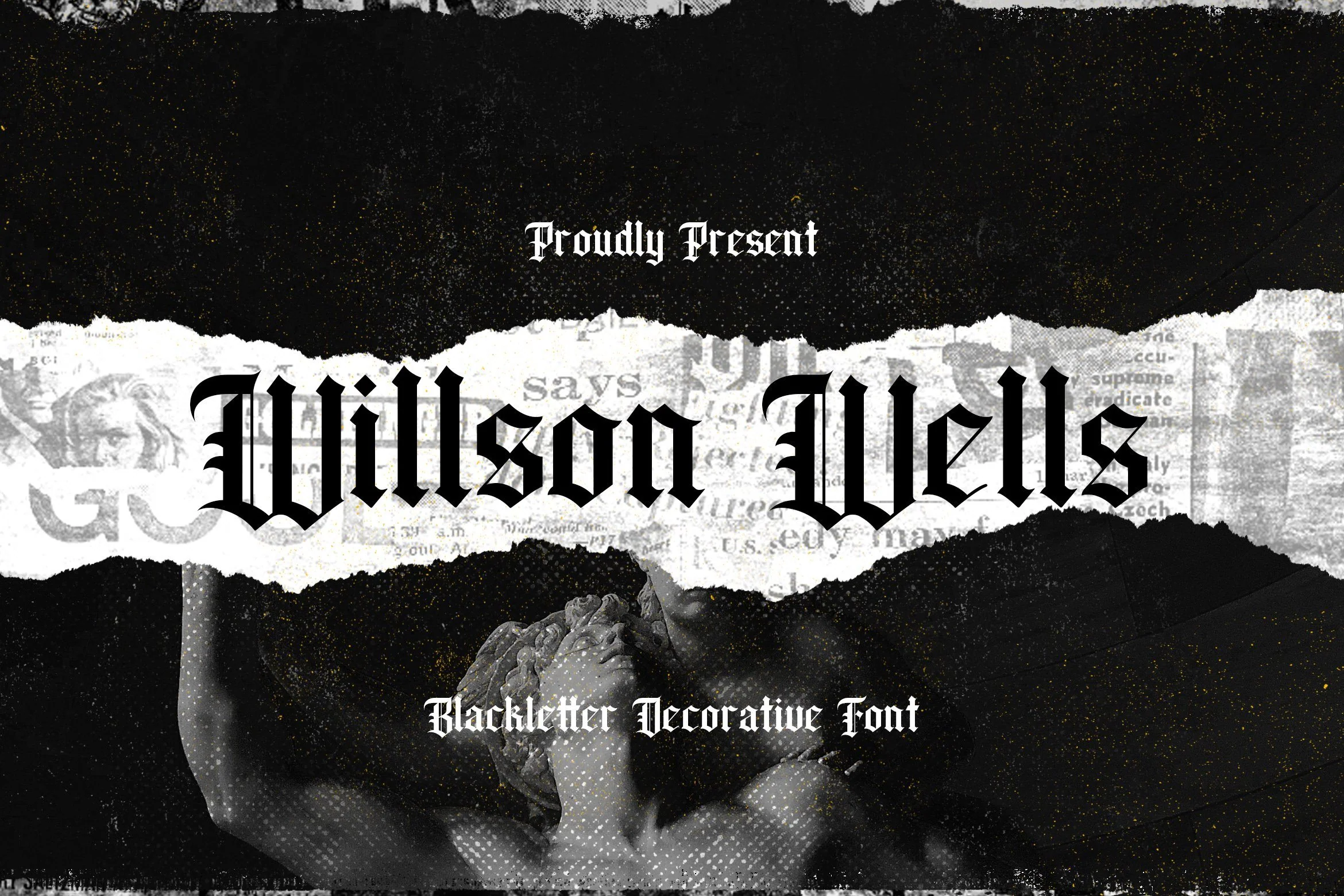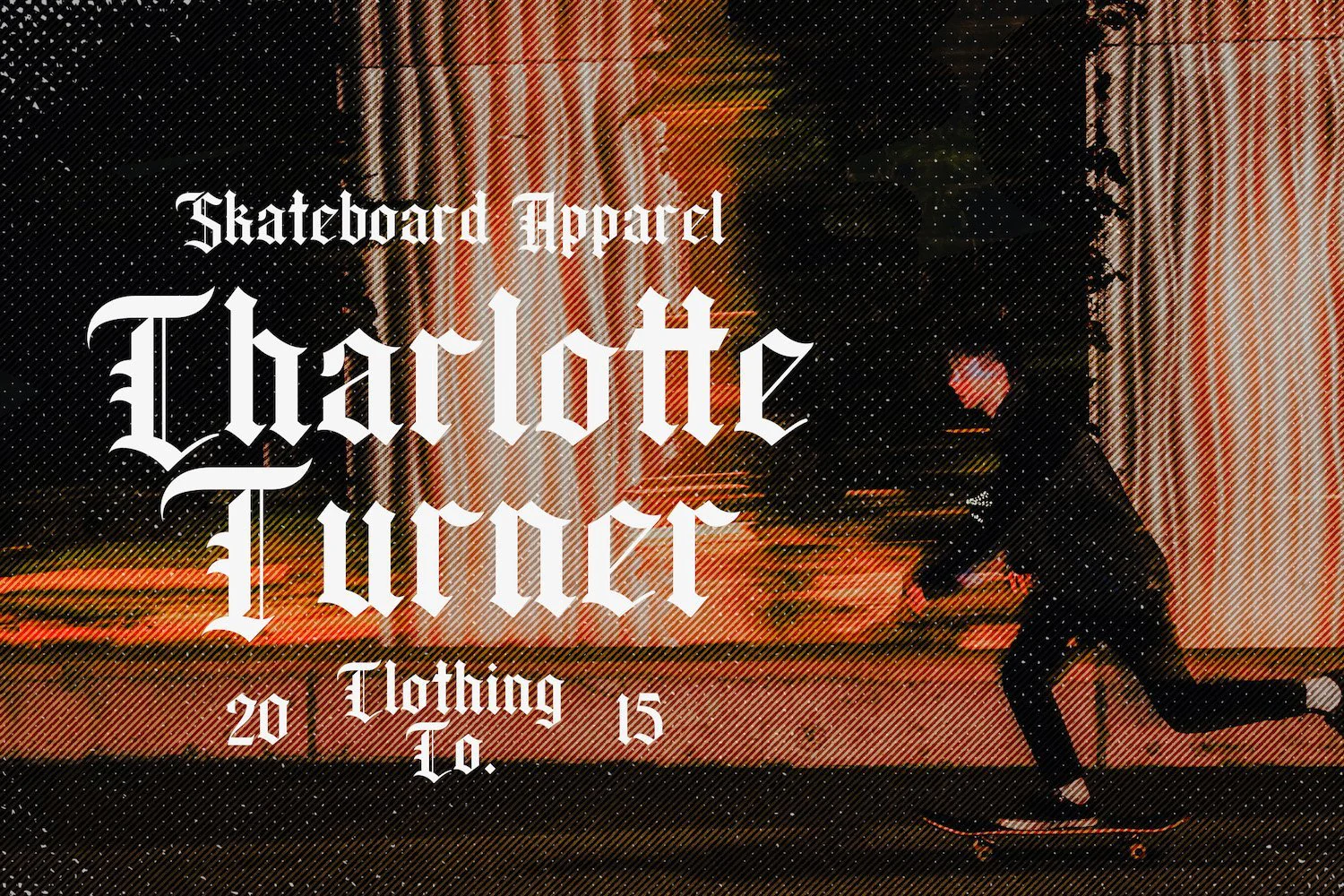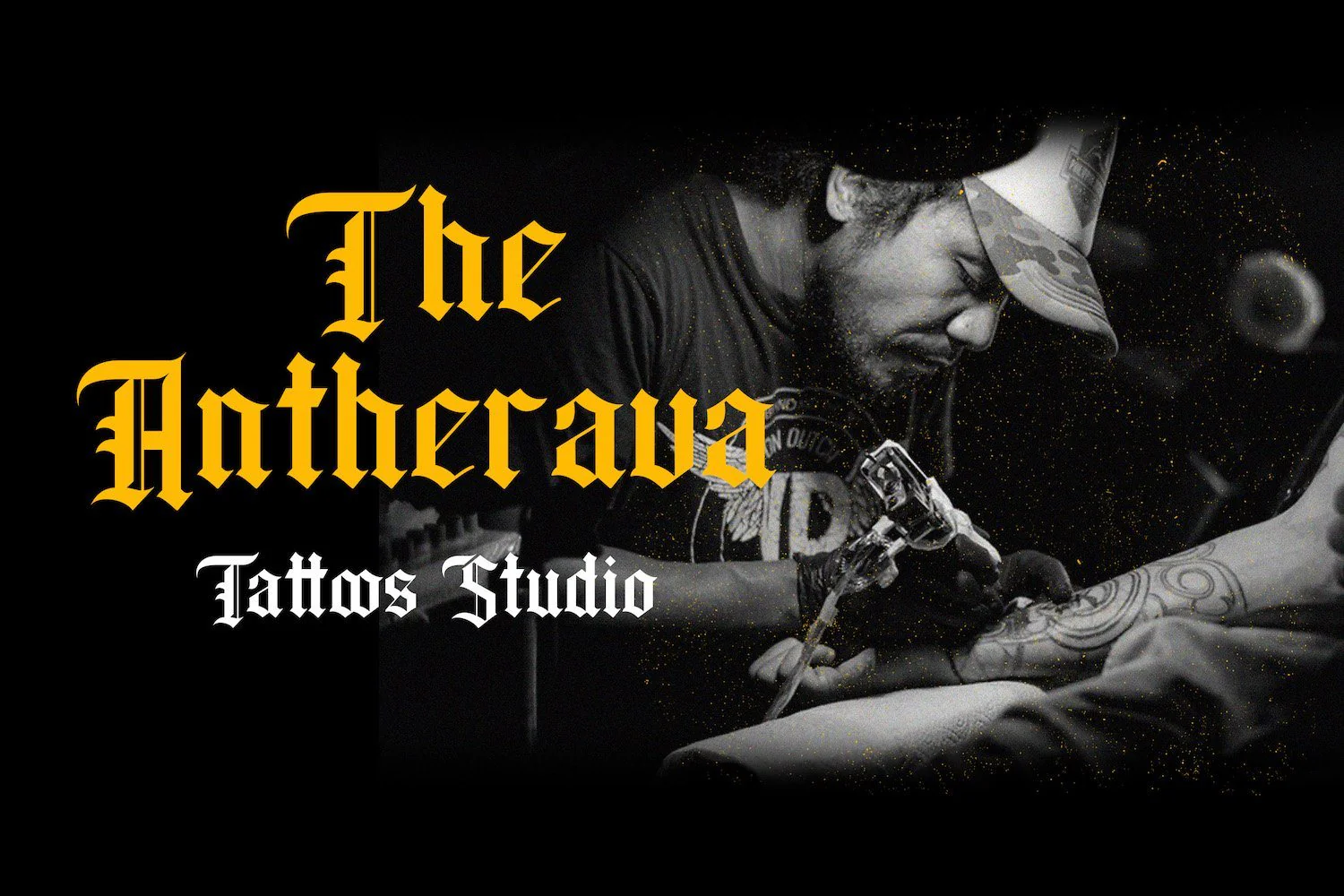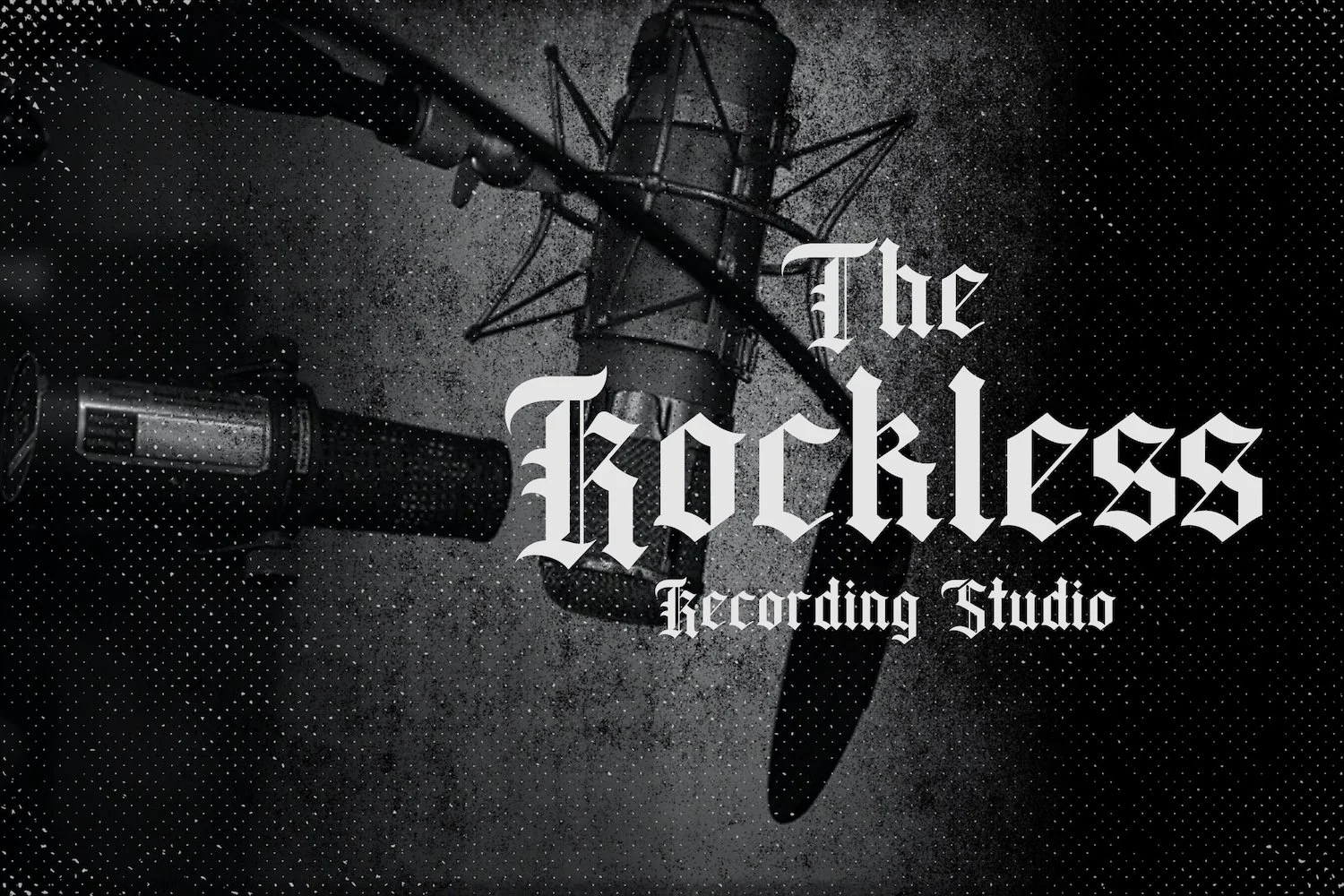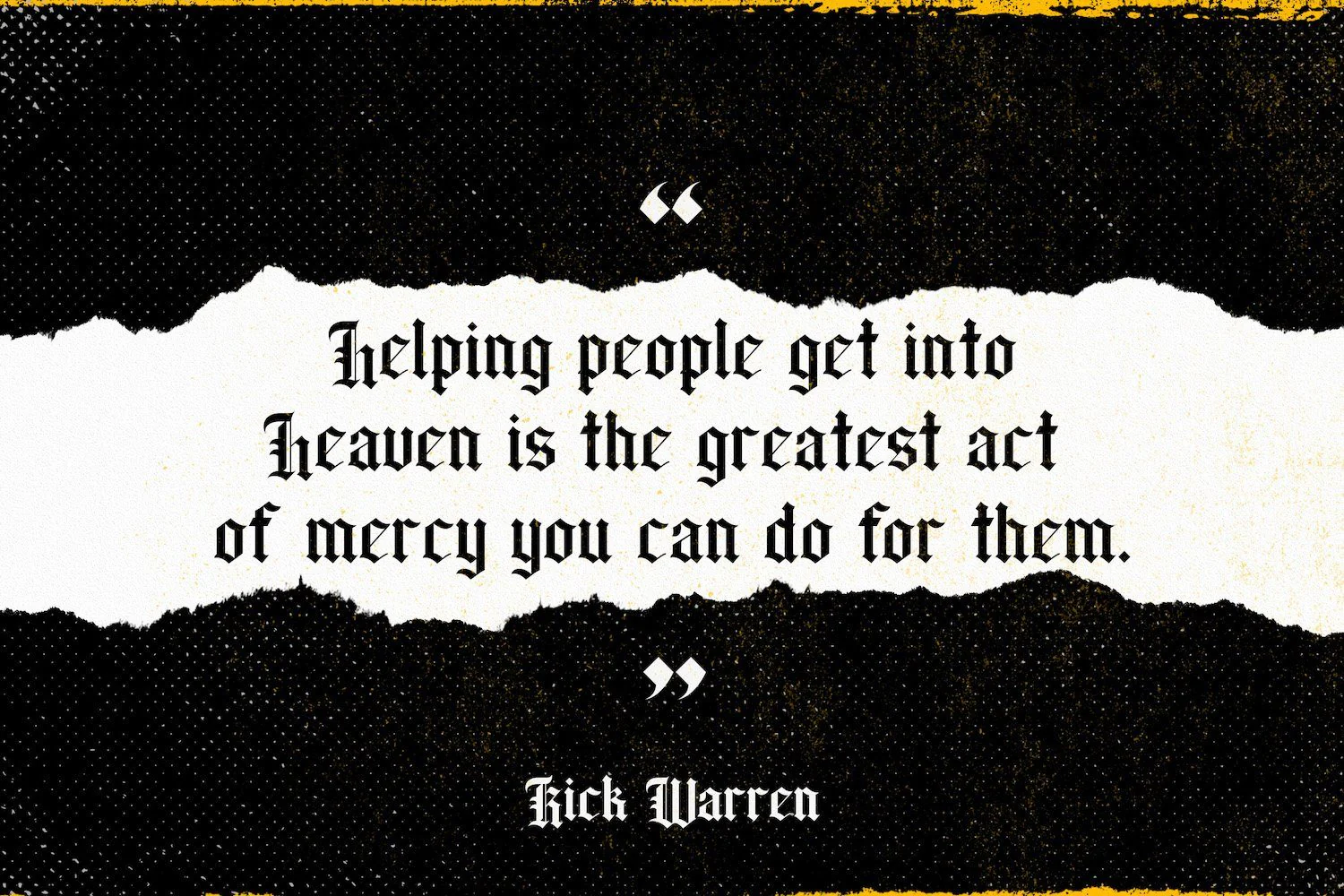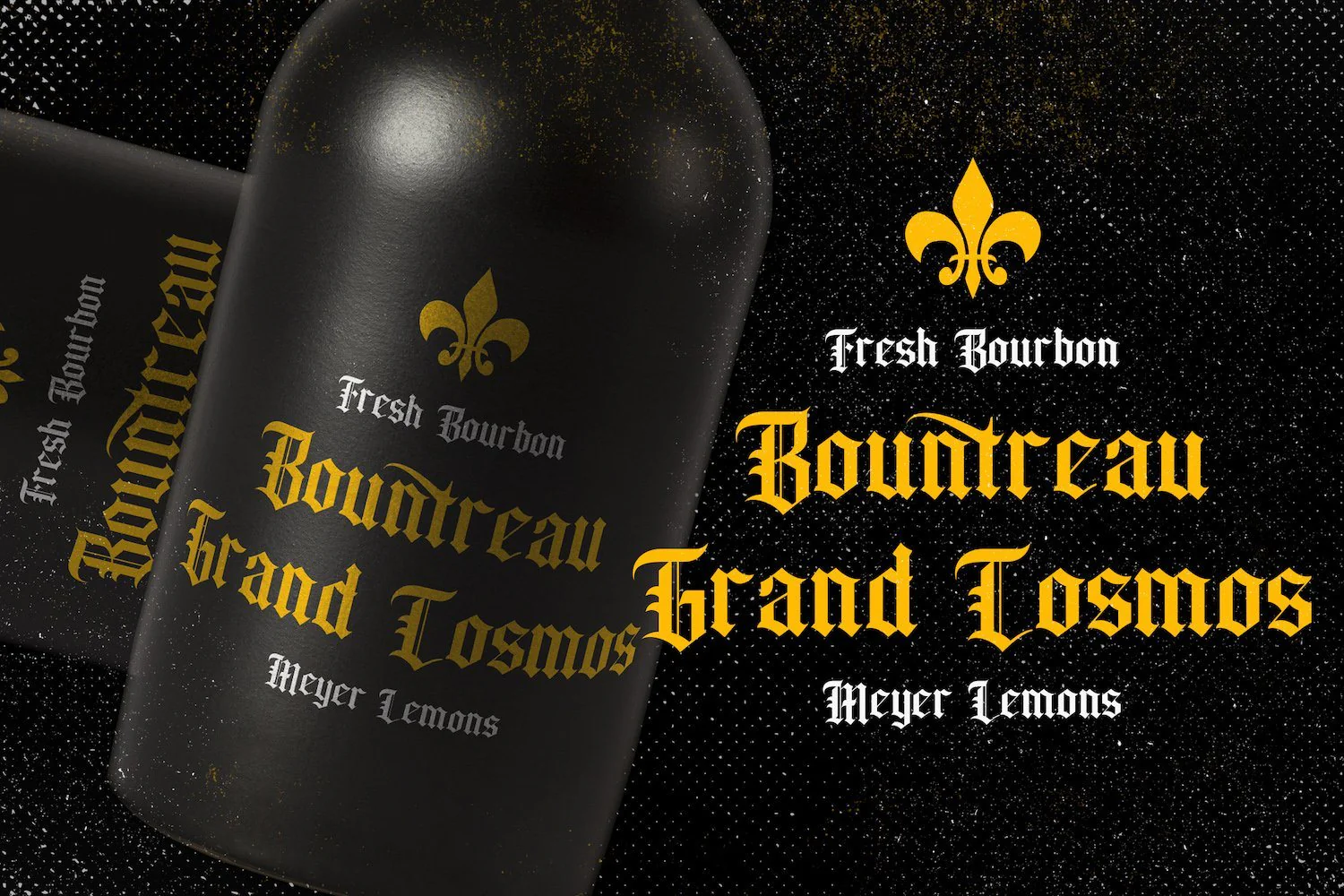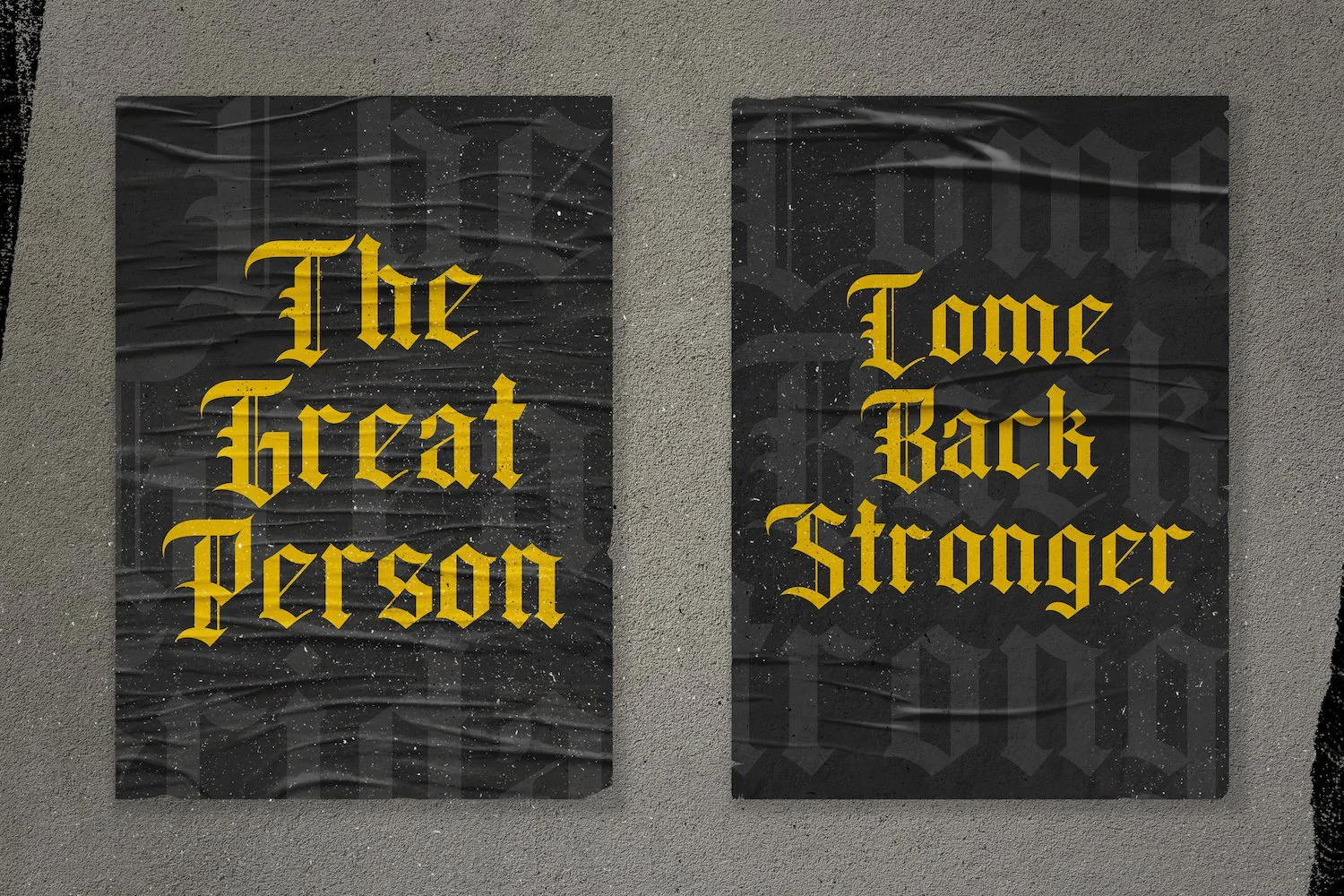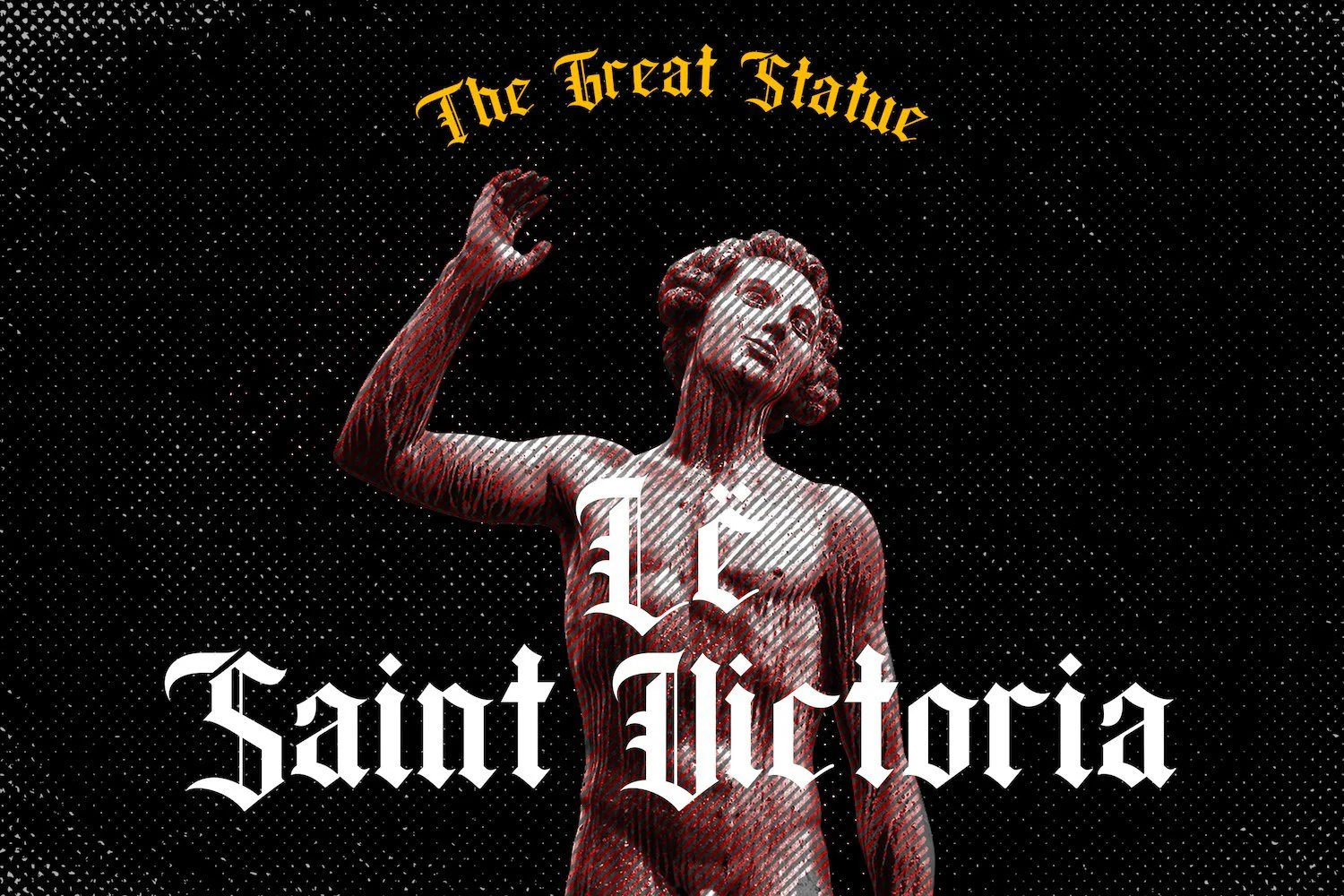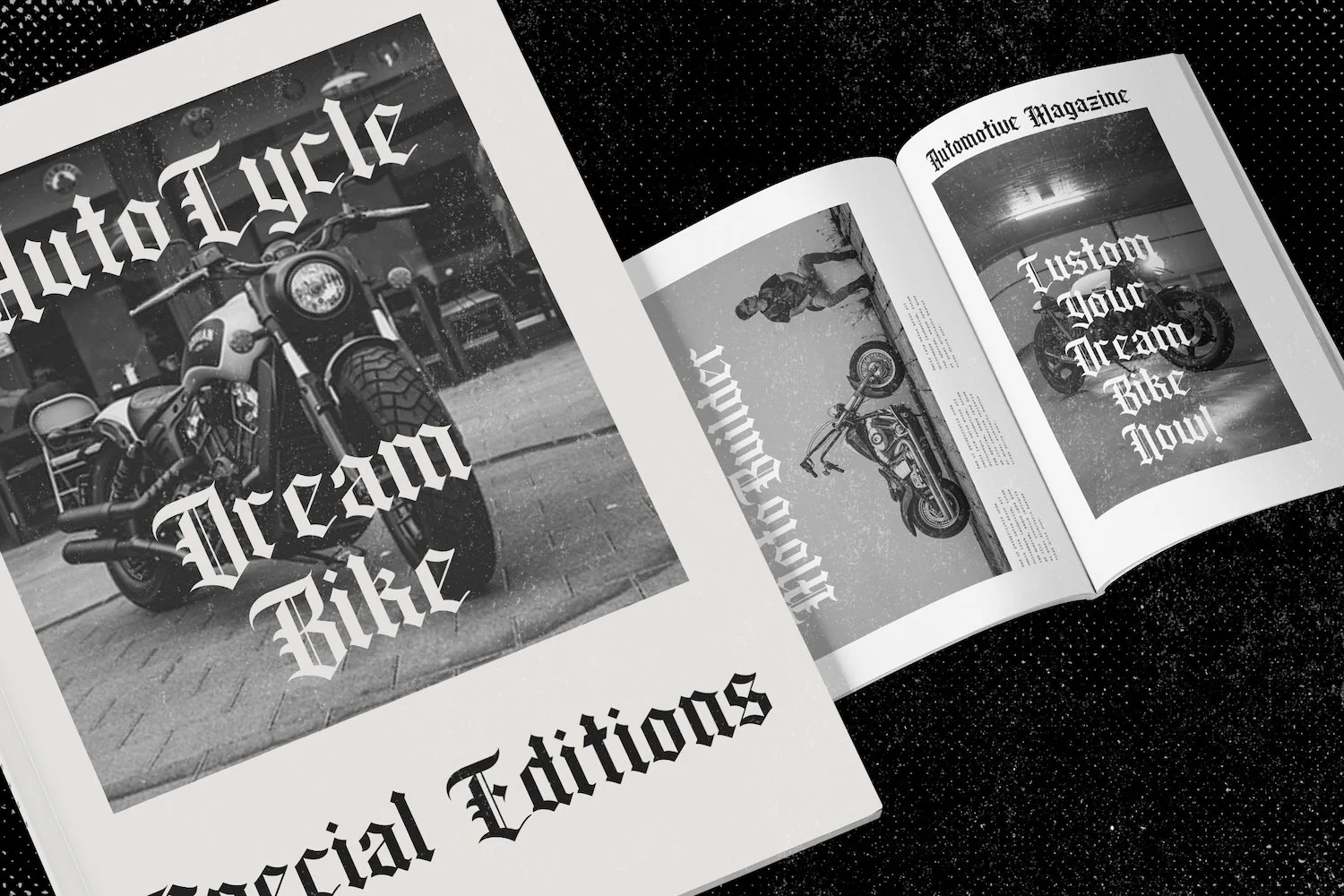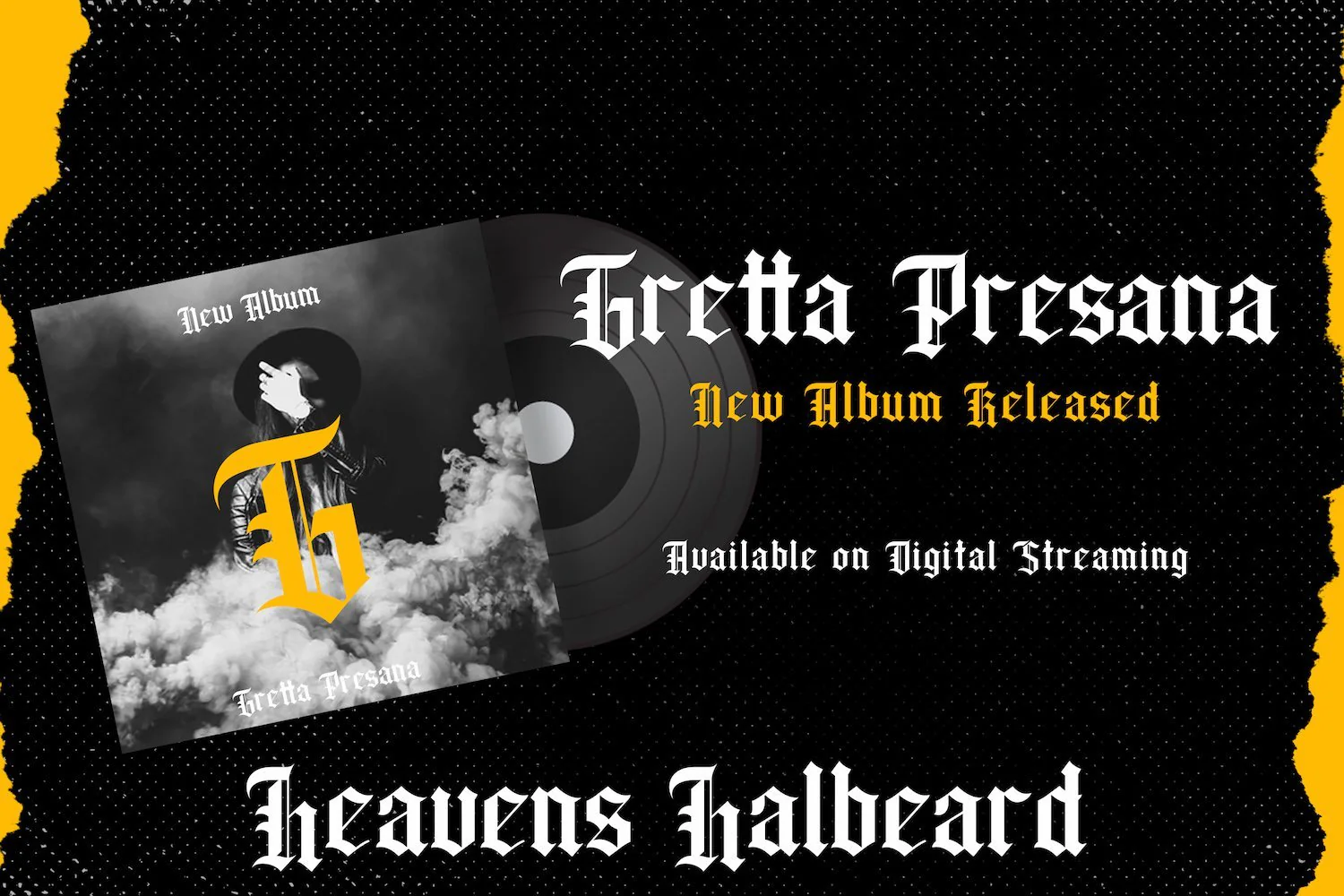
Wilson Wells - Blackletter Decorative Font
Introducing Wilson Wells - Blackletter Decorative Font
The Wilson Wells is an unique blackletter decorative font. It’s suitable for use in various projects such as gothic lettering, tattoo, headlines, posters, magazines, newspapers, t-shirts, labels, and every other design which needs a striking typeface.
Introducing Wilson Wells - Blackletter Decorative Font
The Wilson Wells is an unique blackletter decorative font. It’s suitable for use in various projects such as gothic lettering, tattoo, headlines, posters, magazines, newspapers, t-shirts, labels, and every other design which needs a striking typeface.